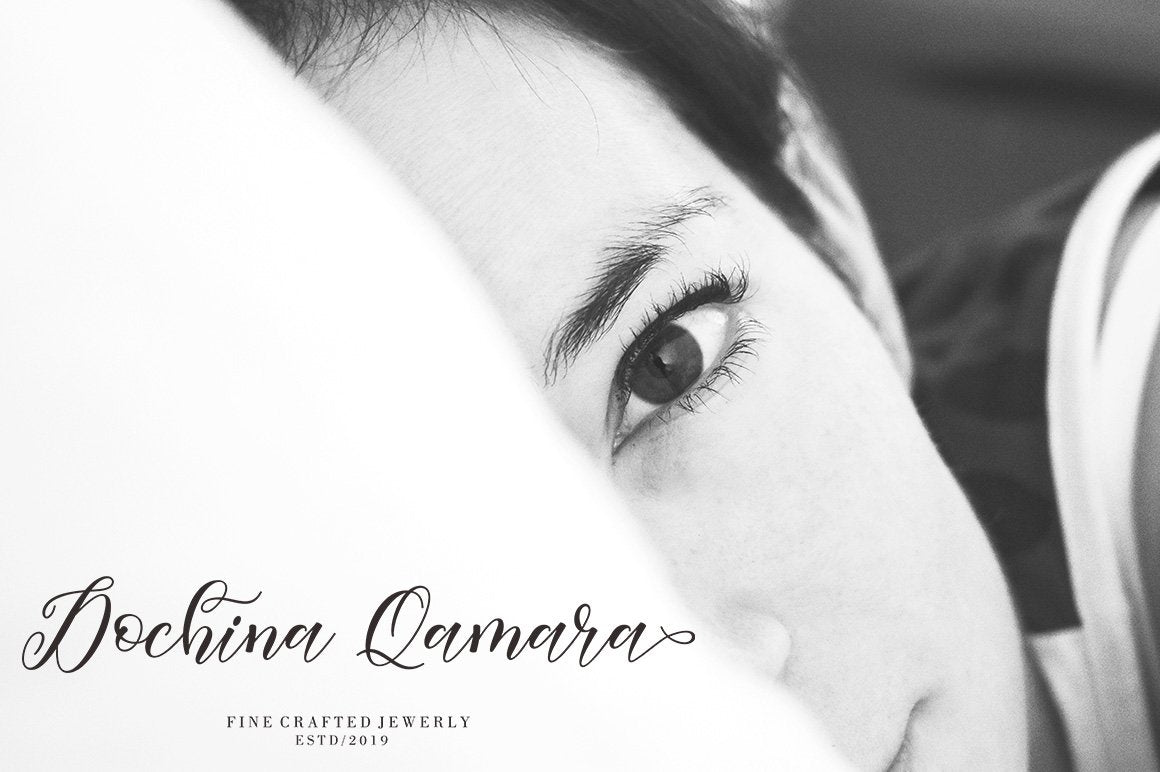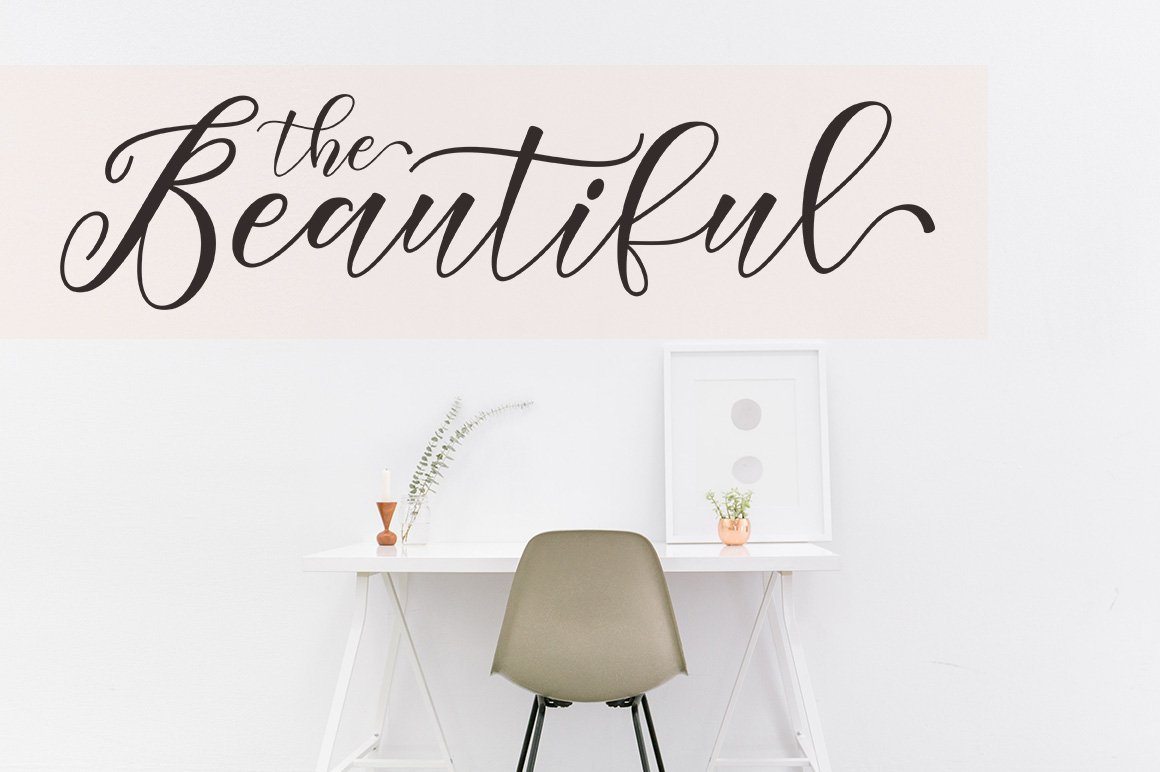
About Kanghara
Kanghara is a calligraphic script font with varying baseline, which is designed to convey elegance and style. It is smoothline, clean and feminine. Works perfectly for logos, magazines, menus, books, invitations, wedding / greeting cards, packaging, labels, t-shirt etc. All designs you will have a wonderful homemade touch with Kanghara. Kanghara features alternate characters. including initial and terminal letters, alternates, ligatures and multiple language support. View all glyphs here: http://imagehosting.biz/images/2017/11/05/Glyphs.jpg Files included: Kanghara (otf, ttf) Kanghara Style (otf, ttf) To enable the OpenType Stylistic alternates, you need a program that supports OpenType features such as Adobe Illustrator CS, Adobe Indesign & CorelDraw X6-X7, Microsoft Word 2010 or later versions. and there are additional ways to access alternates/swashes, using Character Map (Windows), Nexus Font (Windows), Font Book (Mac) or a software program such as PopChar (for Windows and Mac). How to access all alternative characters using Adobe Illustrator: https://www.youtube.com/watch?v=XzwjMkbB-wQ How to access all alternative characters, using Windows Character Map with Photoshop: